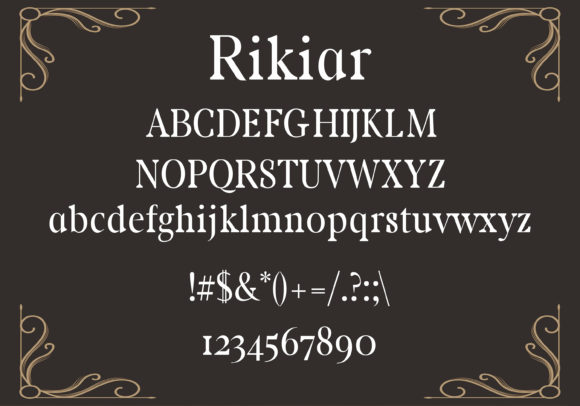
Introduction to Rikiar Font
Remember that moment when you were working on a creative project and the perfect font eluded you? You wanted something that would transport your design to a bygone era, something that would add an air of sophistication and elegance. That’s exactly what the Rikiar Font does – it brings a touch of vintage charm to your design, elevating it to new heights.
Whether you’re working on a graphic design project, a website, or even a logo, the Rikiar Font is an invaluable resource. Its bold and serif style lends itself perfectly to a wide range of designs, from modern to vintage, and its high quality ensures that your design stands out from the crowd.
Key Features of Rikiar Font
- High-quality, professional font suitable for creative projects and design resources.
- Unique, elegant design with a transparent background, allowing for seamless integration with any design.
- Perfect for designers and artists looking for a high-resolution font to enhance their work.
Honest Review: Rikiar Font
As a designer, I’m always on the lookout for unique and high-quality design resources to elevate my creative projects. The Rikiar Font caught my attention with its sleek and modern aesthetic, making it a great addition to any design.
- ✨ High-quality design: The Rikiar Font is well-crafted with smooth lines and a consistent style, making it perfect for professional designs.
- ⚠️ Limited language support: The Rikiar Font only supports a limited range of languages, which may be a drawback for designers working on international projects.
- ⚠️ Limited font weights: The font only comes in a few weights, which may limit its versatility in certain design scenarios.
Overall, I’m impressed with the Rikiar Font’s design and functionality. While it may have some limitations, it’s a great resource for designers looking for a high-quality, modern font to elevate their creative projects.
Common Use Cases for Rikiar Font
Rikiar Font is ideal for use in various creative projects, including logos, business cards, and marketing materials. Its unique design makes it a great resource for designers looking to add a touch of elegance and sophistication to their work.